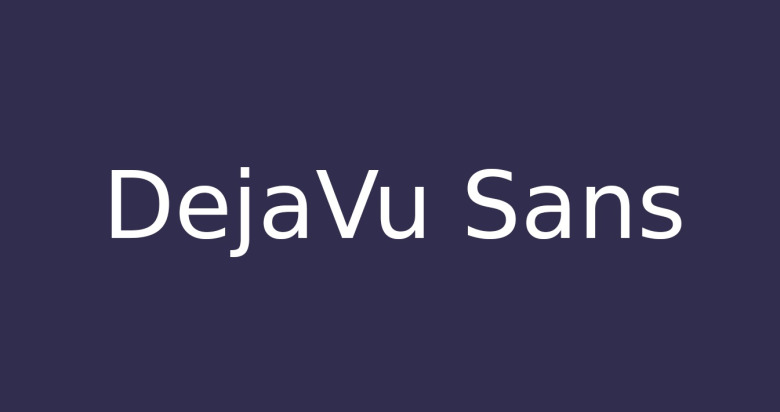
DejaVu Sans Font Family
DejaVu fonts are based on the Vera Fonts. The goal is to maintain a degree of fidelity to the original style of the font, and in order to accommodate a greater set of characters than what the original designer would have included (for example, the entire Latin, Greek, and Cyrillic ranges) the font undergoes the practice of collaborative development.